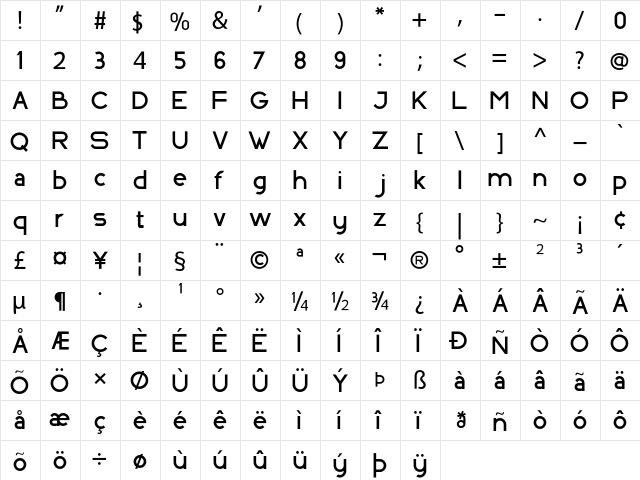
INDOSCREEN Regular
| Foundry | Zulkhairilettering |
| Designer | Zulkhairi |
Design Context for INDOSCREEN Typeface
INDOSCREEN is a composed and adaptable typeface that performs quietly and consistently across a wide range of design contexts.